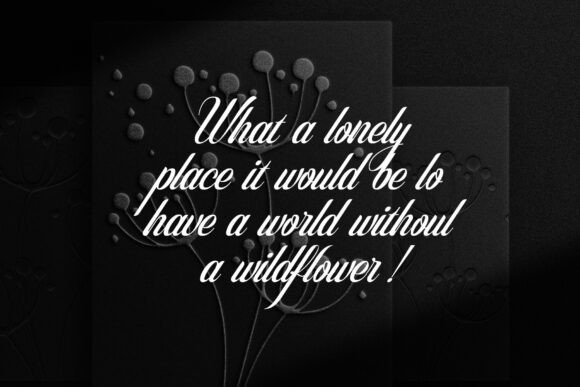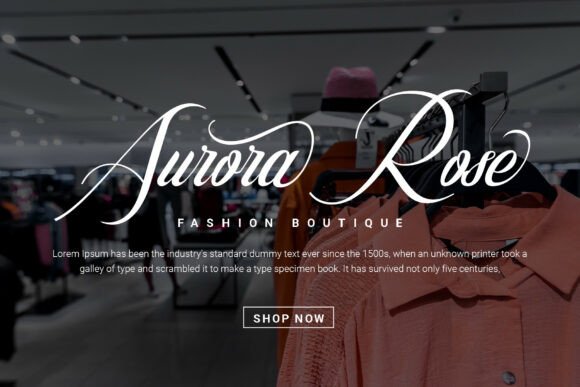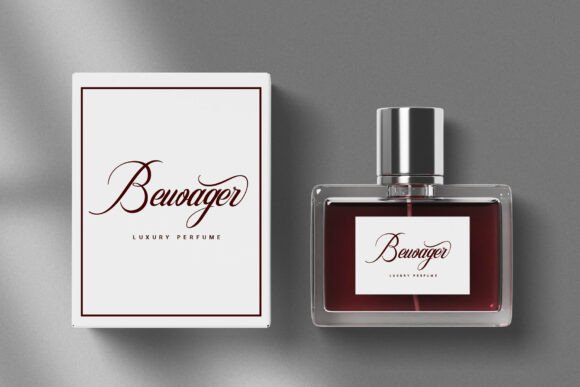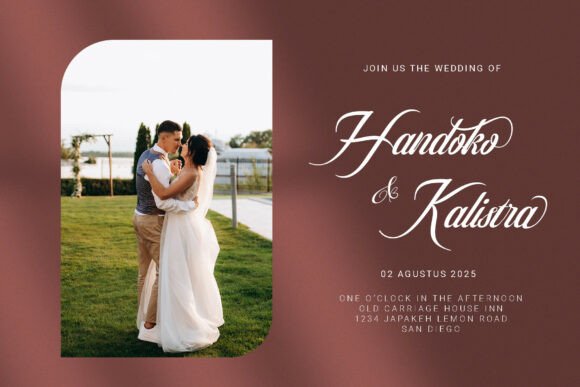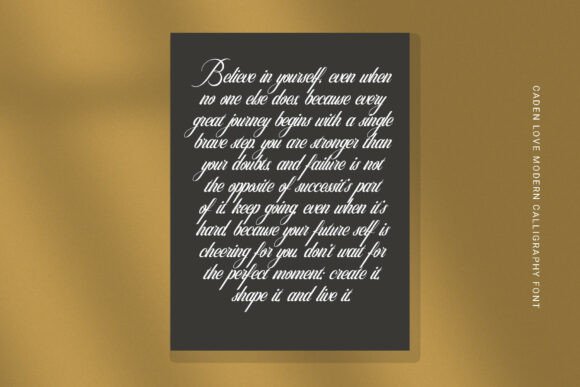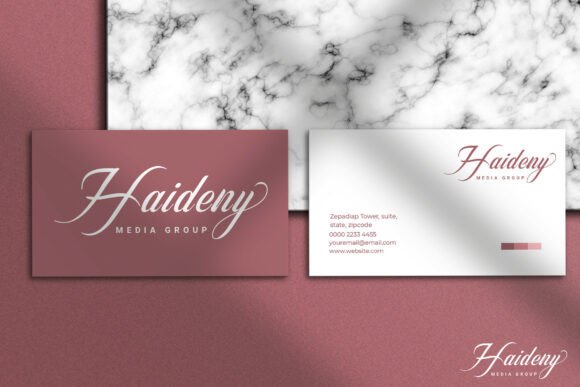
The Magic of Caden Love Font: Elevating Designs with Elegance and Sophistication
I’ll never forget the time I was working on a wedding invitation project, and my client asked for a font that exuded romance, luxury, and a touch of modernity. I scoured the internet, tried countless fonts, but nothing seemed to fit the bill. That was until I stumbled upon Caden Love Font. Its elegant, flowing script style immediately caught my attention, and I knew I had found the perfect fit. In this article, I’ll share my experience with Caden Love Font, its features, and how to make the most of it in your designs.
A Personal Review: What I Love About Caden Love Font
Caden Love Font has quickly become one of my go-to fonts for projects that require a touch of sophistication and romance. Here are some things I love about it:
- ✨ Elegant, flowing script style with graceful curves and high-contrast strokes
- ✅ Refined thin-to-thick transitions that evoke a sense of luxury and refinement
- 💫 Long, sweeping ascenders and descenders that add a touch of drama and flair
- 🎨 Ornate swashes and alternate characters that offer endless creative possibilities
While Caden Love Font is an amazing font, it’s not without its quirks. Here are a few things to keep in mind:
- 🤔 The font can be a bit finicky when it comes to kerning, so be sure to adjust it manually for optimal results
- ⚠️ Some of the swashes and alternate characters can be a bit over-the-top, so use them judiciously to avoid overwhelming the design
The Designer Inspiration Behind Caden Love Font
Caden Love Font was designed with the intention of creating a modern, elegant script font that would evoke a sense of romance and sophistication. The designer, inspired by the beauty of handwritten calligraphy, aimed to create a font that would be perfect for wedding invitations, branding, and upscale packaging. With its flowing script style, high-contrast strokes, and ornate swashes, Caden Love Font is a true masterpiece of modern typography.
- Q: What is Caden Love Font?
- A: Caden Love Font is a modern calligraphy font that blends elegance with expressive artistry.
- Q: What is Caden Love Font best used for?
- A: Caden Love Font is perfect for wedding invitations, branding, and upscale packaging.
- Q: Is Caden Love Font easy to read?
- A: Yes, Caden Love Font is designed to be elegant and refined, while still being easy to read.